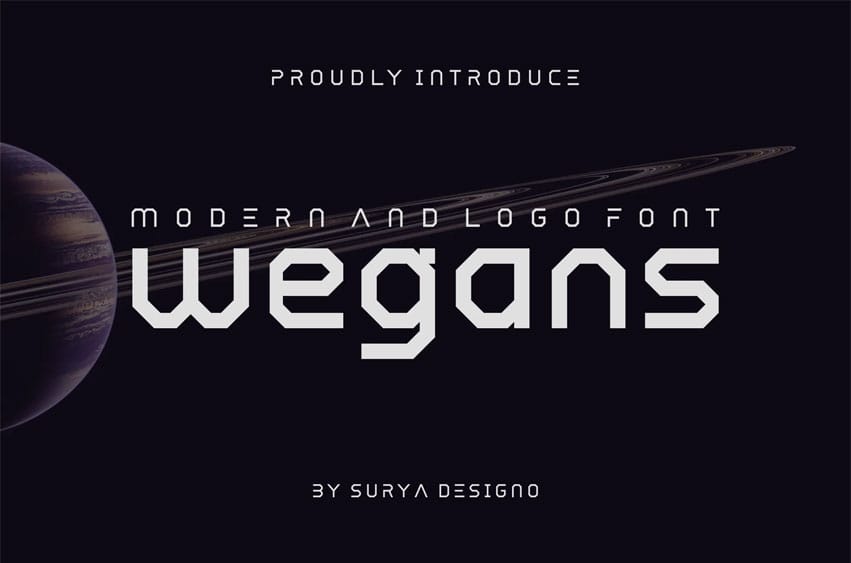
Wegans Font Modern Font is a bold and authentic display font. The font is suitable for any branding project like logo, t-shirt printing, esport, and many more. outstanding in a wide range of contexts.